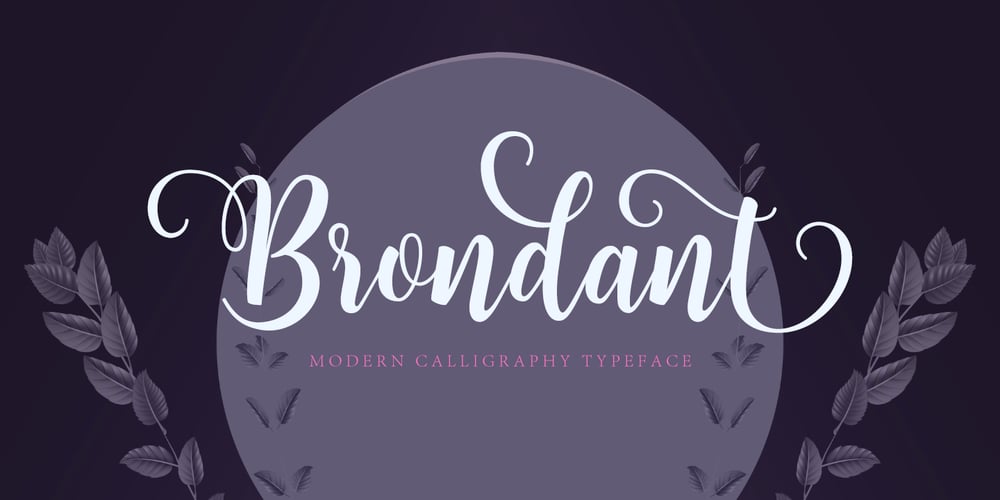
Brondant Font Family was designed by BOYHAQI . and published by Unicode Studio. Brondant contains 1 styles and family package options. Brondant Script – a new fresh & modern script with a handmade calligraphy style, decorative characters and a dancing baseline! So beautiful on invitations like greeting cards, branding materials, business cards, quotes, posters, and more!Brondant Script comes with 340 glyphs in totaly. The alternative characters were divided into several Open Type features such as Swash, Stylistic Sets, Stylistic Alternates, Contextual Alternates, and Ligatures. The Open Type features can be accessed by using Open Type savvy programs such as Adobe Illustrator, Adobe InDesign, Adobe Photoshop Corel Draw X version, And Microsoft Word. And this Font has given PUA unicode (specially coded fonts). so that all the alternate characters can easily be accessed in full by a craftsman or designer